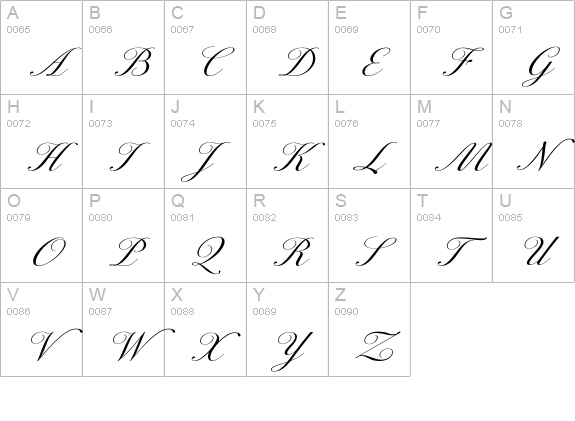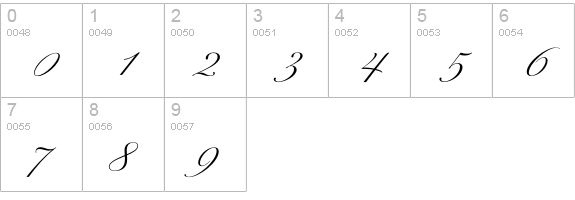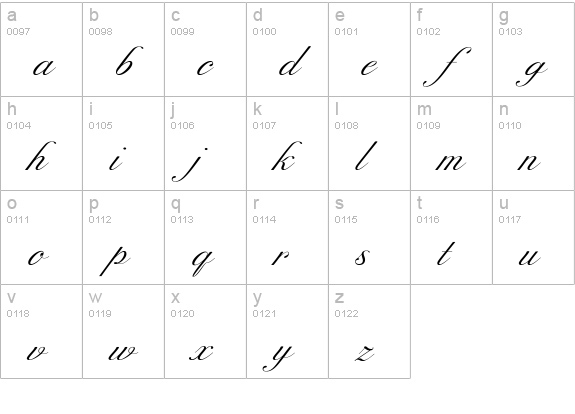
ExcelsiorScriptExtended Font Details
ExcelsiorScriptExtended is a stunning and elegant font that exudes sophistication and style. With its graceful curves and intricate details, this font is perfect for adding a touch of luxury to any design project. Whether you're working on wedding invitations, branding materials, or any other creative endeavor, ExcelsiorScriptExtended is sure to make a statement. What's even better is that ExcelsiorScriptExtended is completely free to download at FontsMarket.com. Yes, you heard that right - you can add this exquisite font to your collection without spending a penny. So why wait? Download ExcelsiorScriptExtended today and elevate your designs to the next level with its timeless charm and beauty.